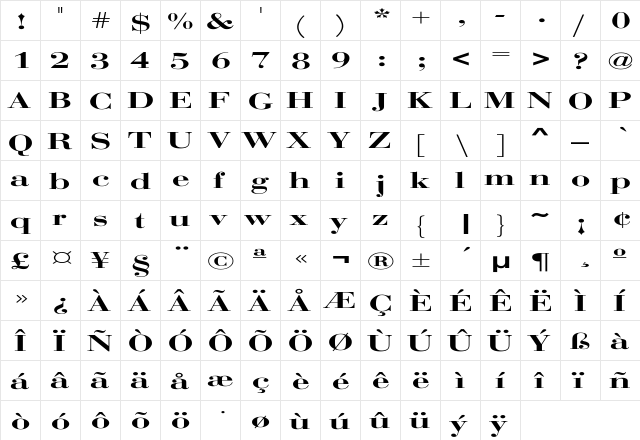
Bodoni Extended Regular
Design Context for Bodoni Extended Typeface
Bodoni Extended takes a measured approach to typography — its balanced proportions and neutral character make it a reliable workhorse for both digital and print work.
Pro Tip: Use Bodoni Extended in both headline and body roles to test its range before committing to a single application.